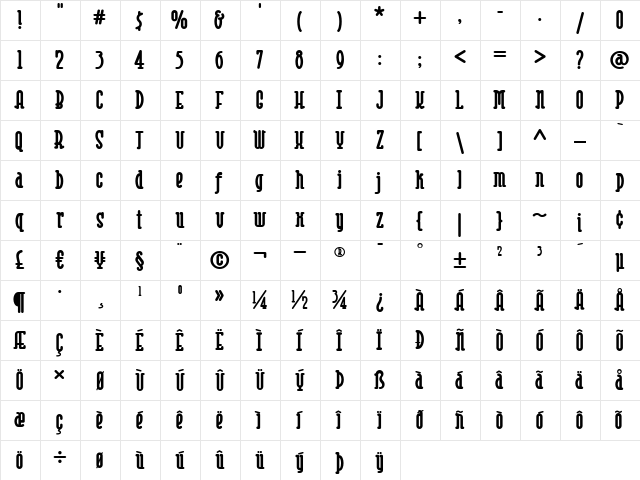
Risky Business Round NF Bold Regular Font Preview
Design Context for Risky Business Round NF Bold Typeface
Risky Business Round NF Bold softens its letterforms with rounded terminals, giving it an approachable, friendly quality that works well in consumer-facing and digital contexts. Its bold stroke weight gives it real presence on the page.
A natural fit for tech startups, health and wellness brands, children's products, and friendly consumer apps.
Font Pairing: Pairs well with a rounded or humanist sans for body copy, maintaining the friendly tone without relying on Risky Business Round NF Bold to carry extended reading.
Pro Tip: Pair Risky Business Round NF Bold with a geometric sans for a balanced system — the rounded softness works as a warm counterpoint to harder-edged companions.